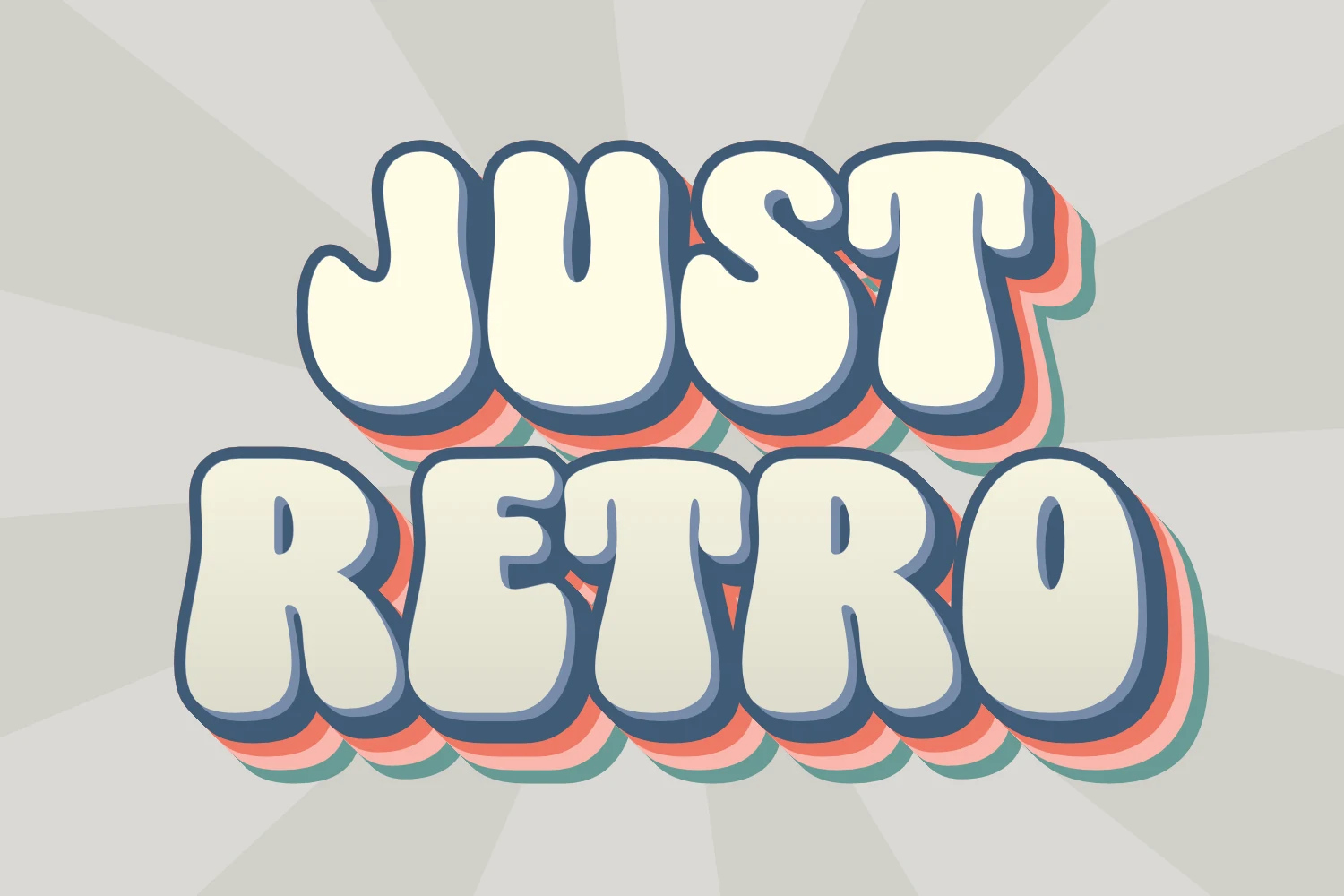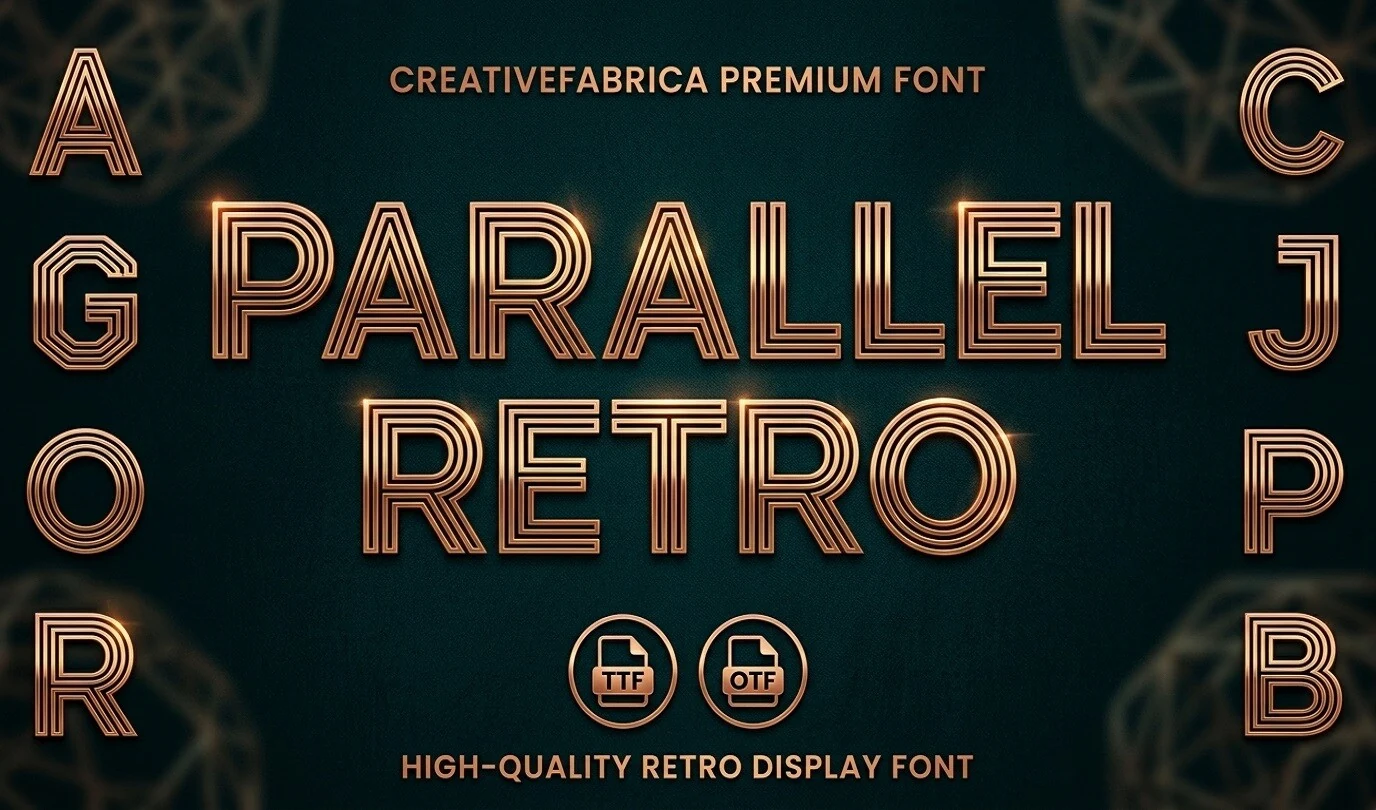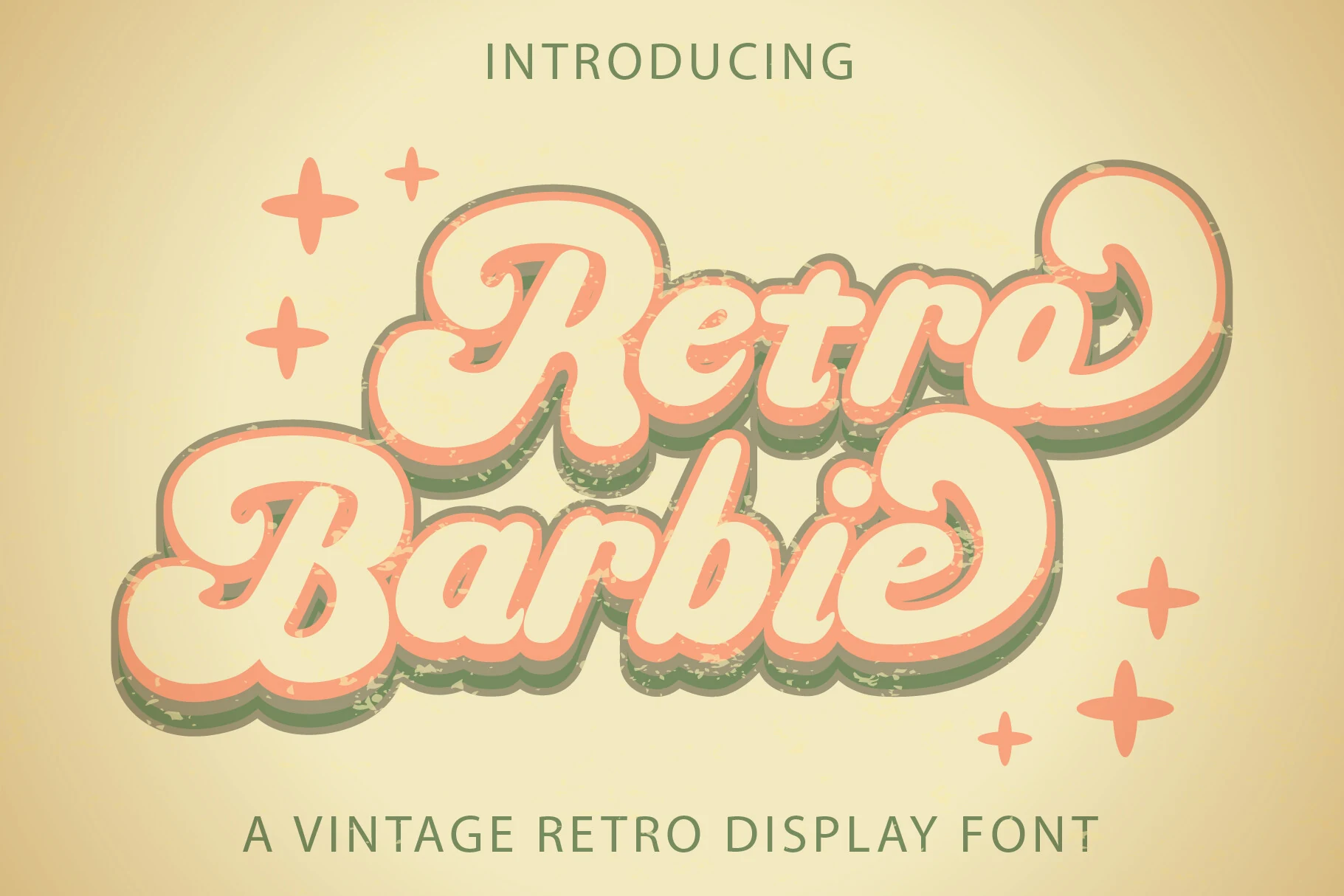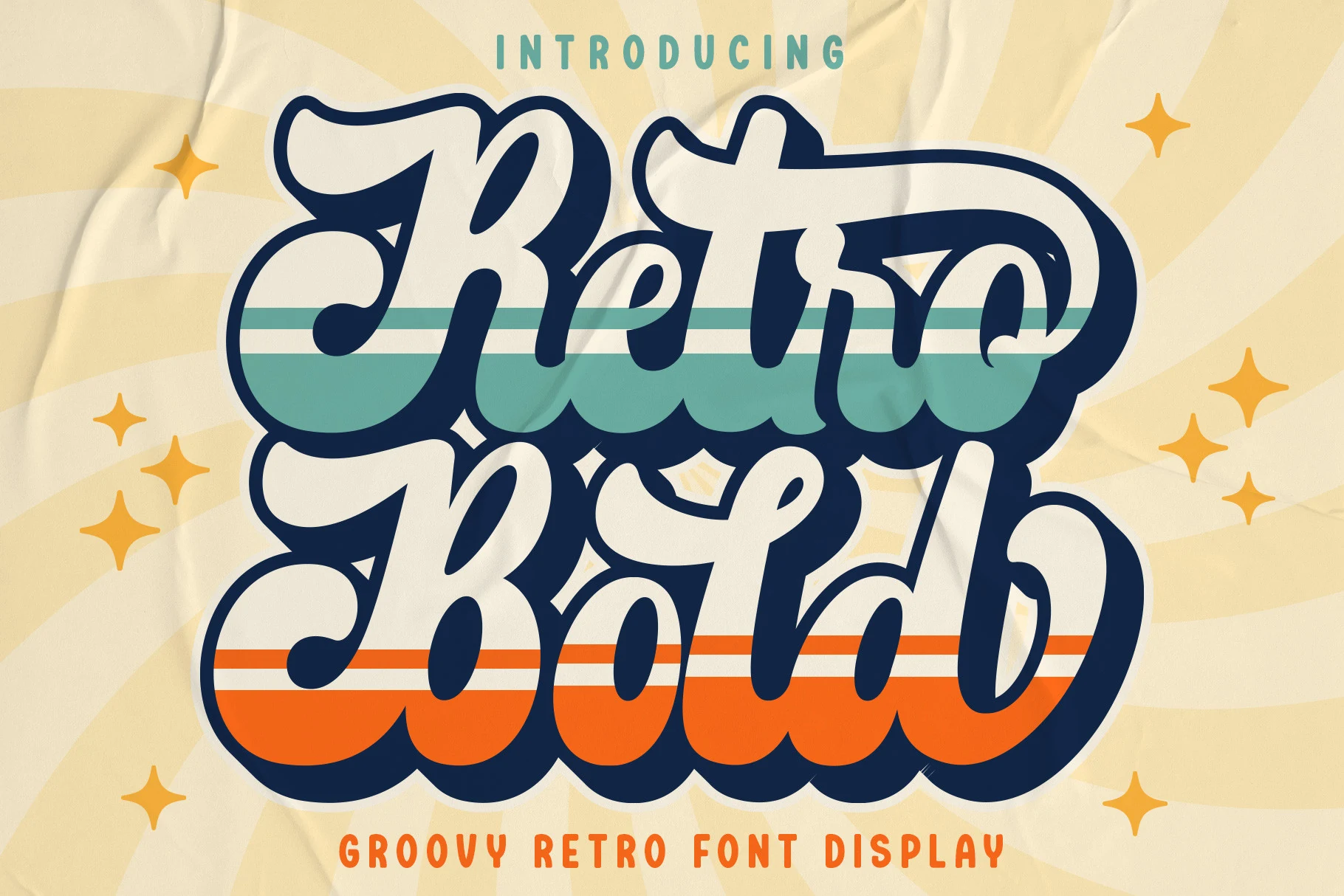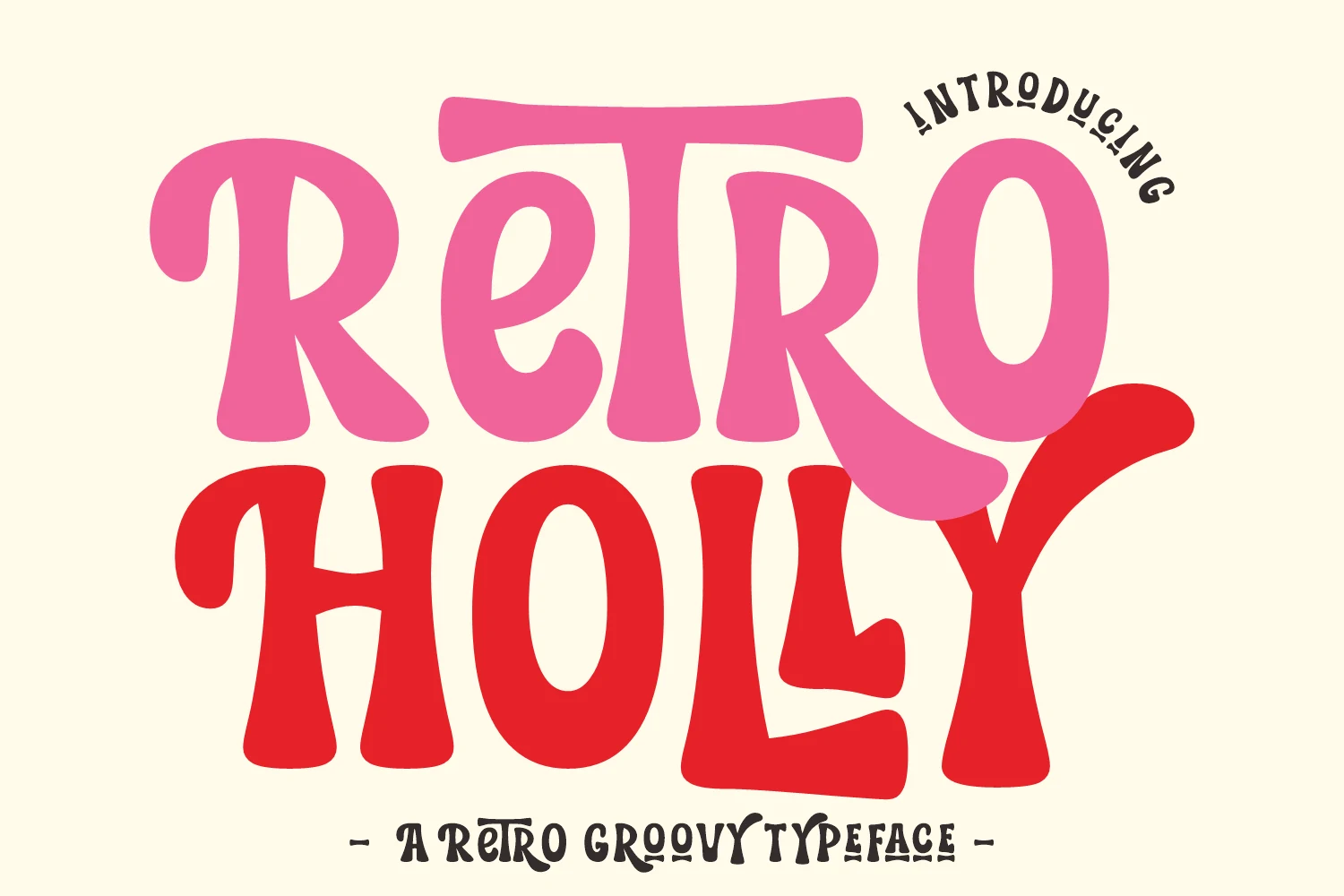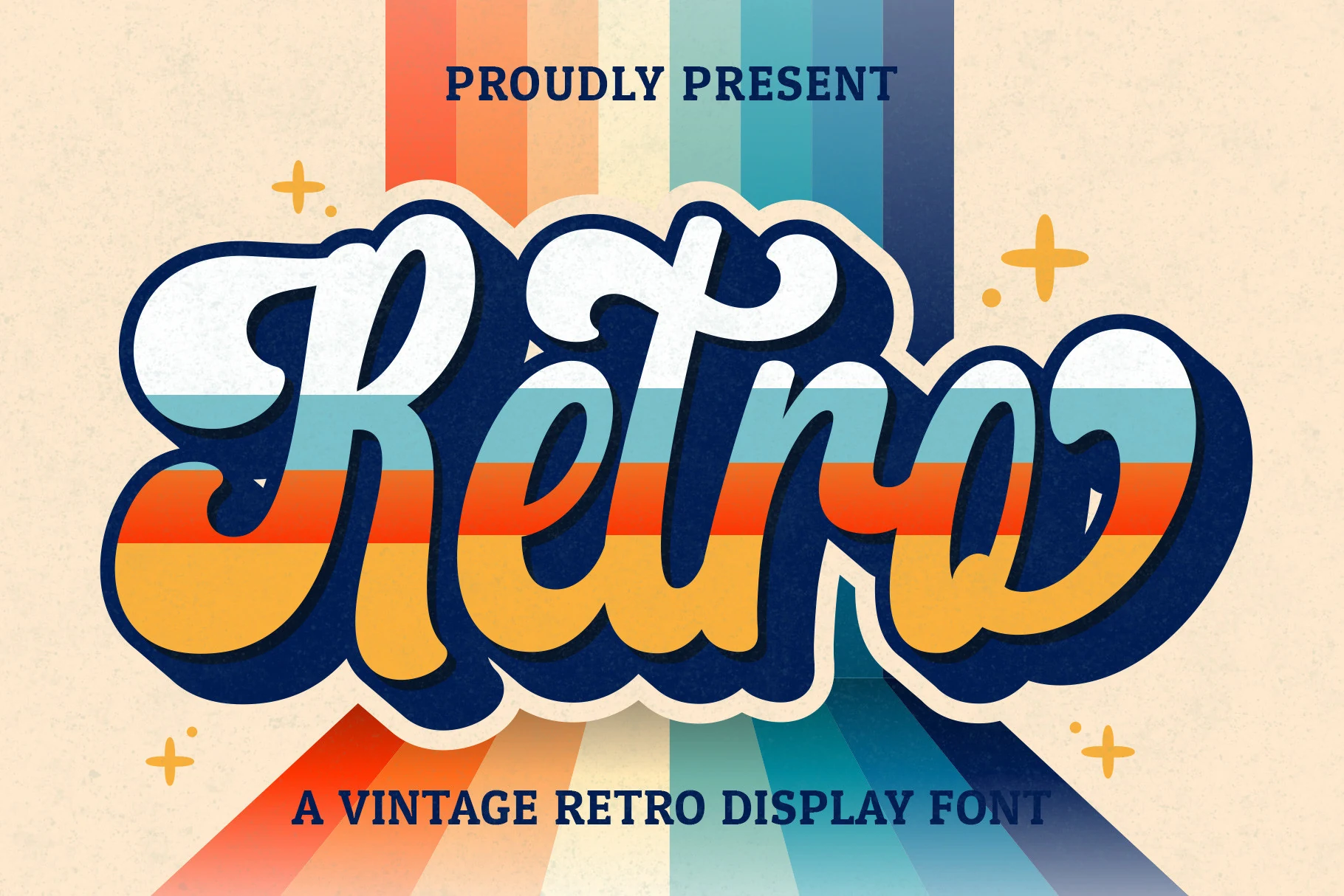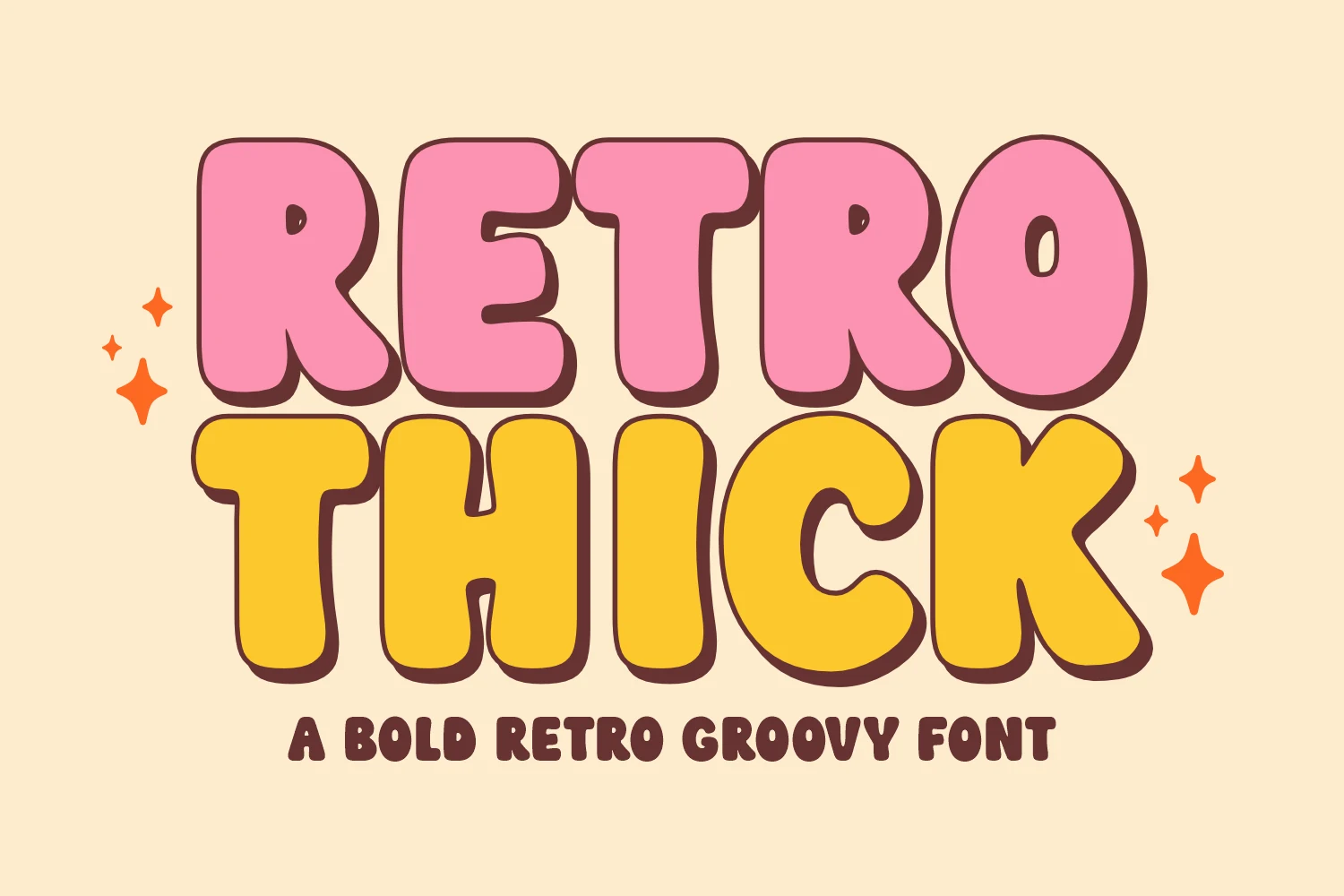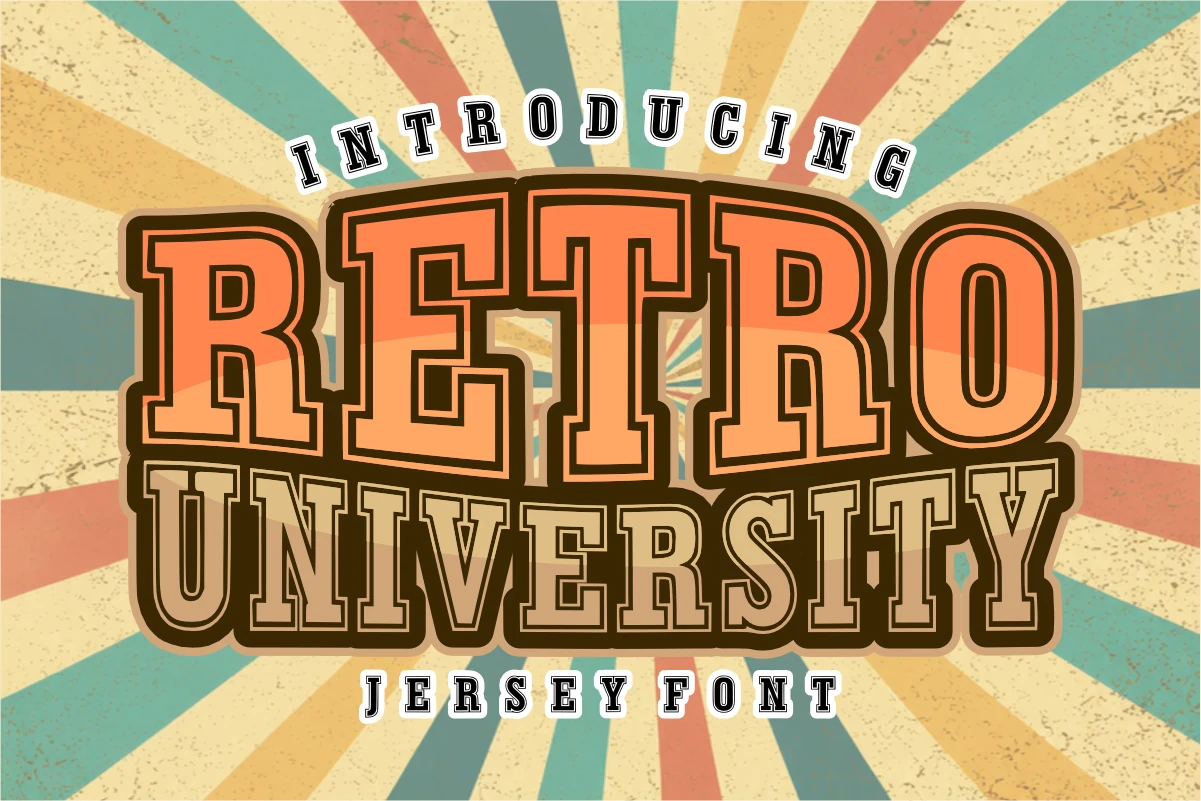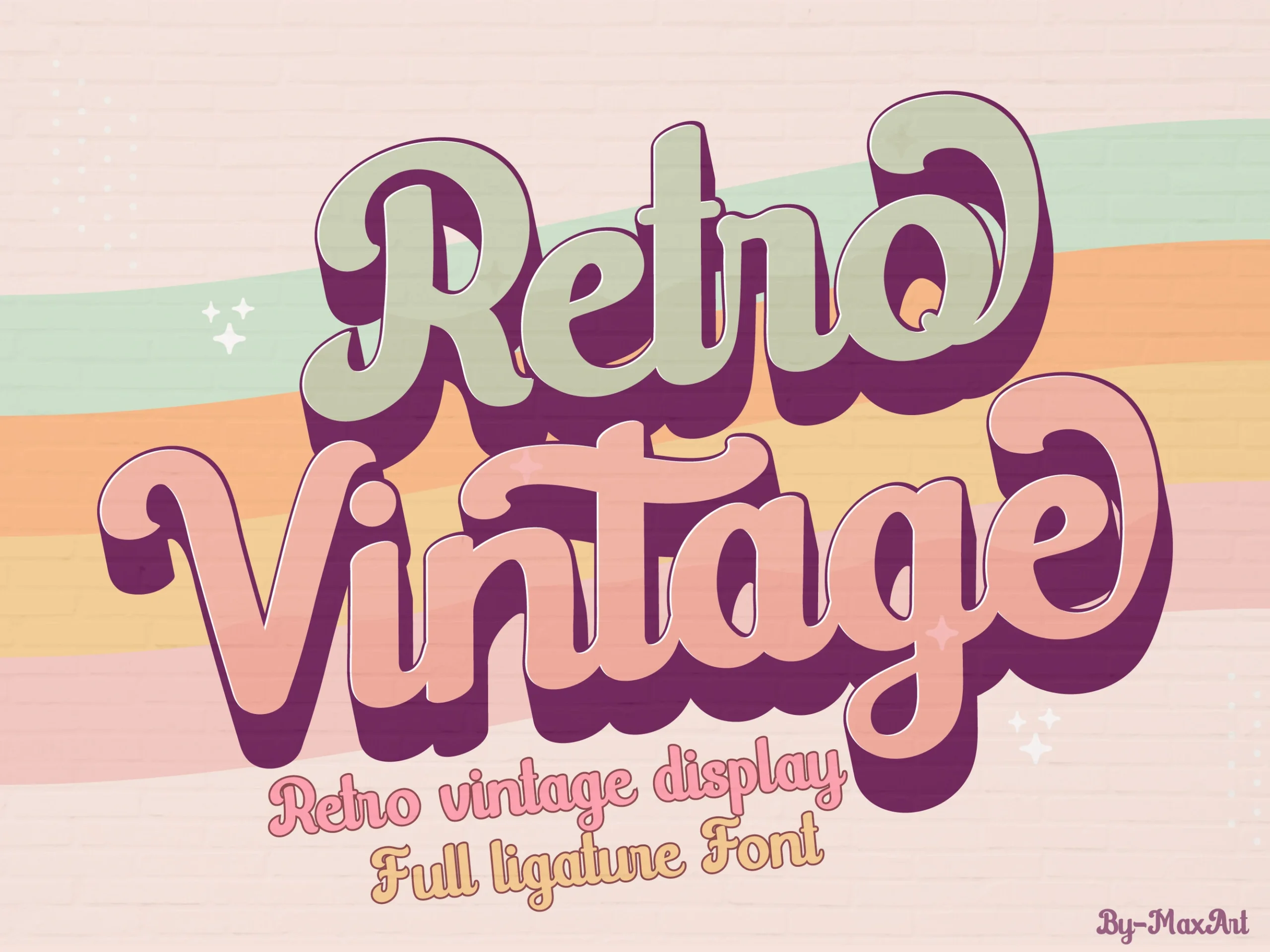
18 Best Retro Aesthetic Fonts in 2026
This collection spans fluid psychedelic distortion, rounded bubble lettering, connected scripts, collegiate slabs, distressed textures, and geometric line work. These Retro Aesthetic Fonts are best suited to logos, posters, apparel, packaging, invitations, and other short display applications where construction and mood matter more than paragraph-length readability.
Retro Aesthetic Fonts: Flowing Scripts
Retro Aesthetic Fonts in this script group rely on connected cursive joins, thick strokes, and expressive terminals. They feel more fluid and logo-oriented than the collection’s disconnected display faces.
Retro Vintage Font
Retro Vintage Font showing a bold, connected script with thick rounded strokes and sweeping ligatures.
Retro Vintage Font is especially effective when a logo or invitation needs connected cursive movement. Bold strokes, rounded terminals, and sweeping cursive joins create a strongly connected silhouette that reads well at display size, although those complex connections lose clarity when reduced.
Retro Bold Font
Retro Bold Font featuring thick connected script letters with rounded terminals and a bold display style.
Retro Bold Font relies on consistently thick, connected strokes to create a straightforward script silhouette. Its monolinear mass is clear enough for large logos, invitations, and branding, but the joined forms need display scale to retain separation and definition.
Retro Script Font
Retro Script Font is a bold, connected cursive script with rounded terminals and a slight rightward slant.
Retro Script Font is a connected, high-contrast face with a slight rightward slant and large rounded terminals. The directional angle gives logos and invitations movement, while thick joins and terminals can crowd together when the wording is reduced.
Retro Barbie Font
Retro Barbie Font features bold, connected cursive letterforms with rounded terminals and a layered 3D shadow effect.
Retro Barbie Font combines connected cursive letters with layered drop shadows, creating a stacked logo effect with immediate branding presence. Its heavy interconnected forms suit large logos, invitations, and social graphics, but generous sizing is needed to preserve clarity.
Wavy And Organic Displays
These faces use waves, irregular contours, and organic curves to create movement across each word. Their fluid silhouettes are more distorted and asymmetrical than the rounded bubble category.
Wavy Retro Font
Wavy Retro Font with thick, fluid letterforms, extreme wavy distortion, and rounded terminals in a retro display style.
Wavy Retro Font pushes Retro Aesthetic Fonts toward extreme psychedelic distortion, turning heavy strokes into fluid, irregular shapes with rounded terminals. Its low legibility makes it a specialist choice for short, oversized headlines, logos, and expressive branding rather than supporting text.
Retro Sunday Font
Retro Sunday Font featuring thick, wavy strokes and exaggerated rounded forms
Retro Sunday Font uses thick, wavy strokes and exaggerated rounded proportions for an energetic 1970s display character. The disconnected construction suits posters, T-shirts, tote bags, and other merchandise, but its distortion and weight make it unsuitable for extended or small text.
Retro Holly Font
Retro Holly Font with bold rounded letters, flowing organic curves, and soft rounded terminals.
Retro Holly Font brings Retro Aesthetic Fonts toward softer organic curves, with bold rounded forms and low contrast throughout. It can support large branding, Cricut work, and poster lettering, though its more complex curves become less distinct when scaled down.
Reatro Retro Font
Reatro Retro Font preview showing bold, wavy, wide letterforms with flowing curves and asymmetrical shapes.
Reatro Retro Font combines wavy western contours with wide proportions and asymmetrical terminals, giving headlines a distinct retro Americana character. The irregular construction works for logos and rodeo-style posters, but its unstable shapes are too demanding for body text.
Retro Voyage Font
Retro Voyage Font shown in a bold, rounded display style with flowing contours and tightly spaced letters.
Retro Voyage Font pushes Retro Aesthetic Fonts into a psychedelic poster treatment through heavy rounded letters, tight spacing, and overlapping strokes. Its wide curvilinear forms make a strong branding or headline statement, though overlap reduces parsing at smaller sizes.
Rounded Bubble Displays
Rounded bubble displays emphasize heavy monolinear shapes, broad proportions, and compact counters. Compared with the wavy group, they offer more structural stability while still prioritizing oversized visual impact.
How to Choose the Right Font
Choose among Retro Aesthetic Fonts by matching construction to scale: connected scripts suit logos and invitations, while bubbles and wavy faces need larger lettering and shorter words. For firmer impact, choose slabs, shadows, or distressing; for lighter poster texture, use parallel lines. Always test joins, counters, overlaps, and flourishes at the final size.